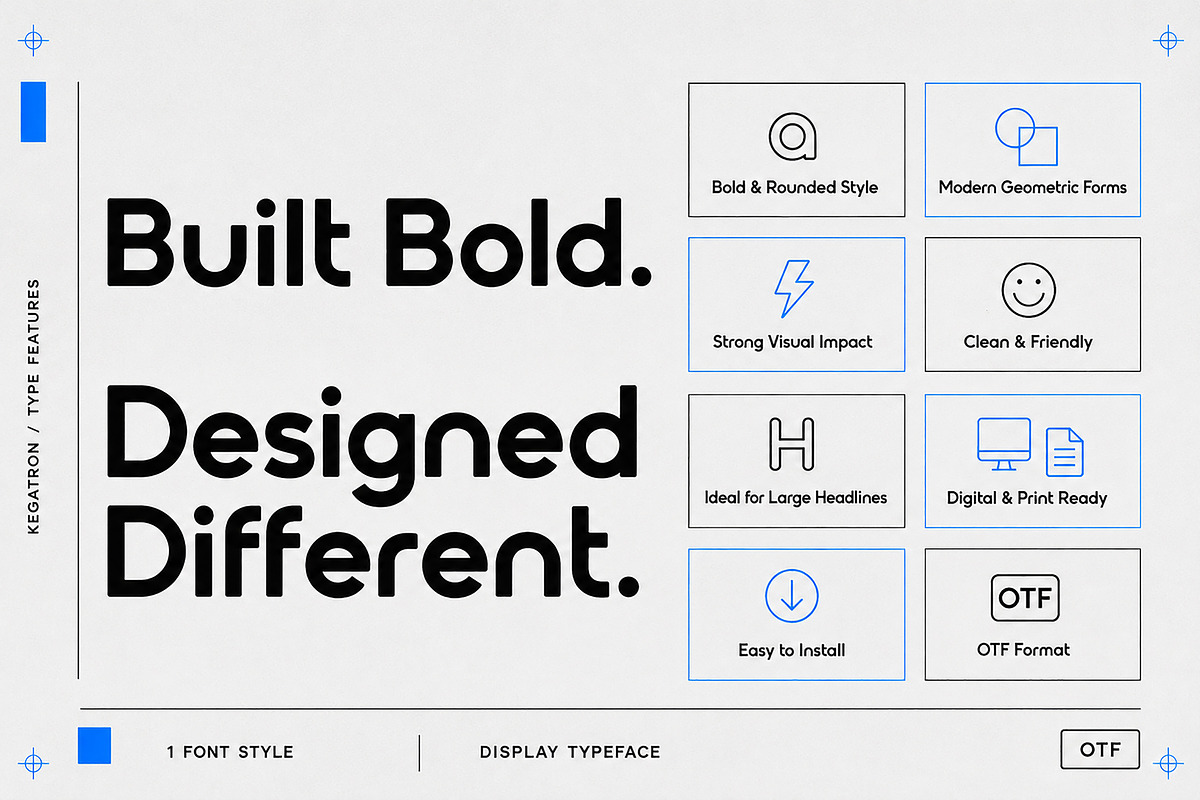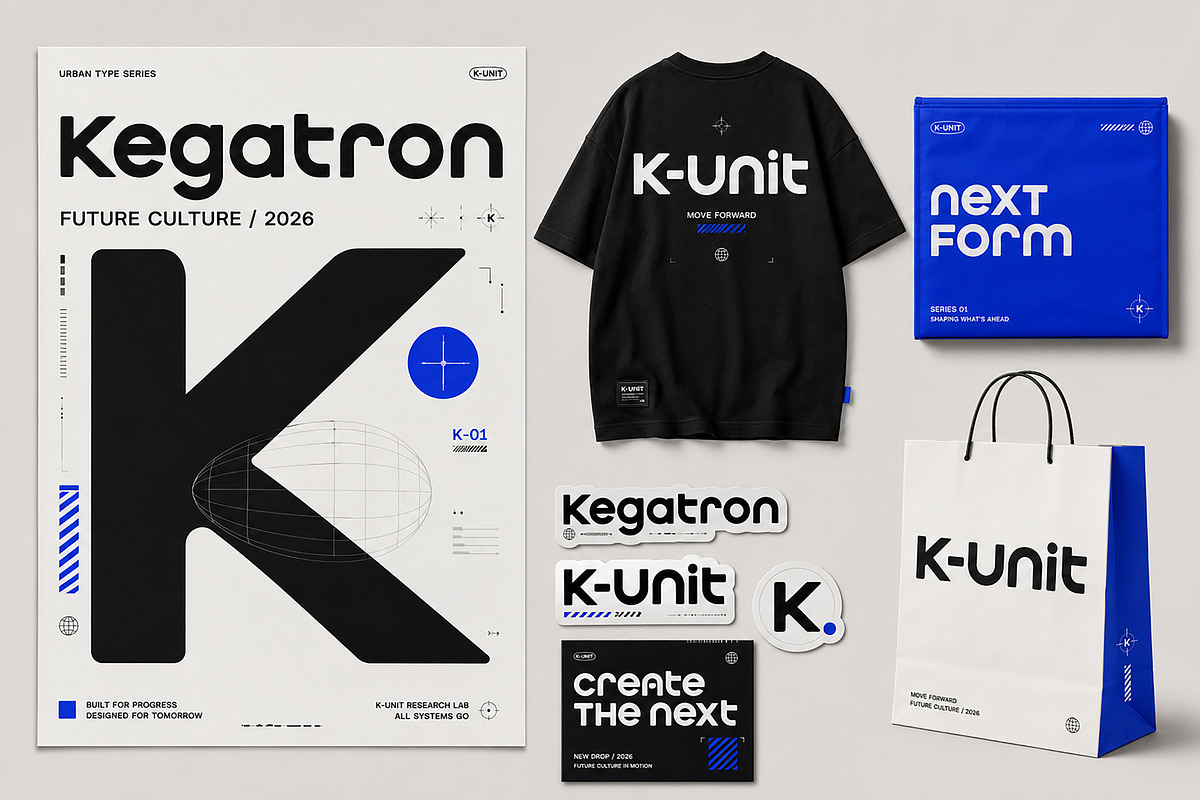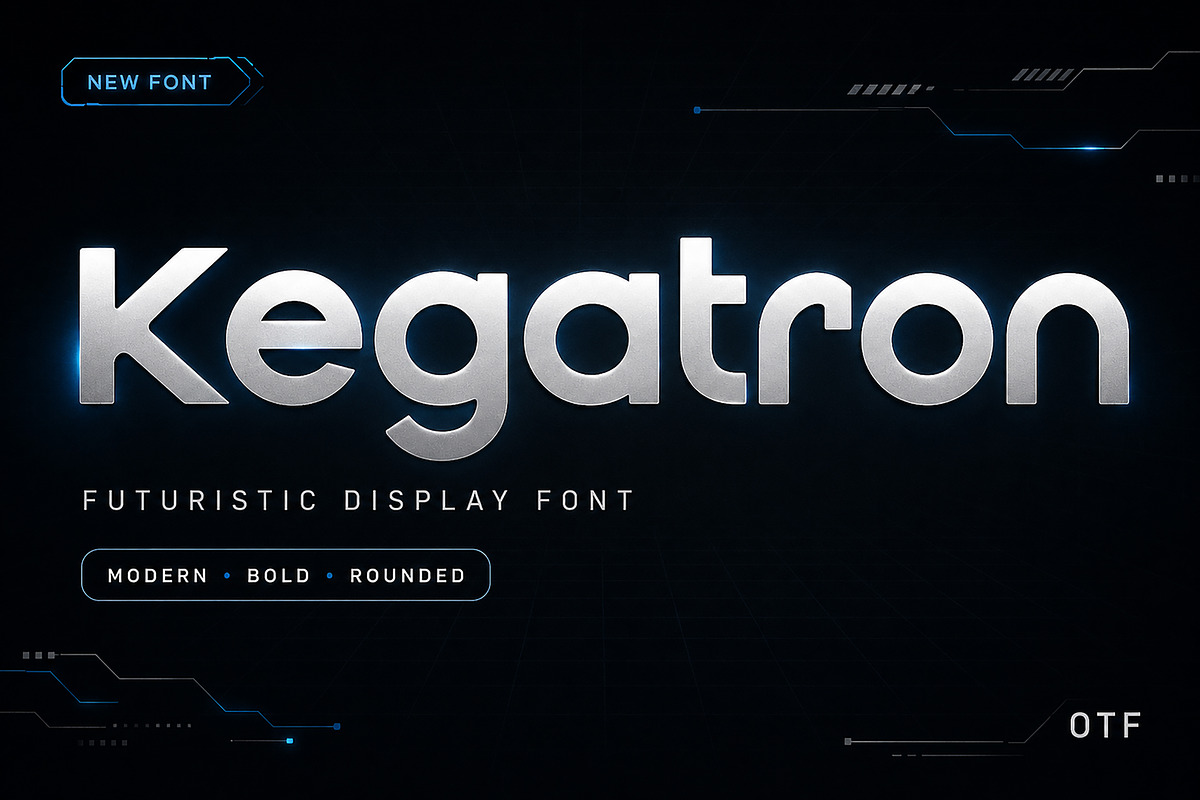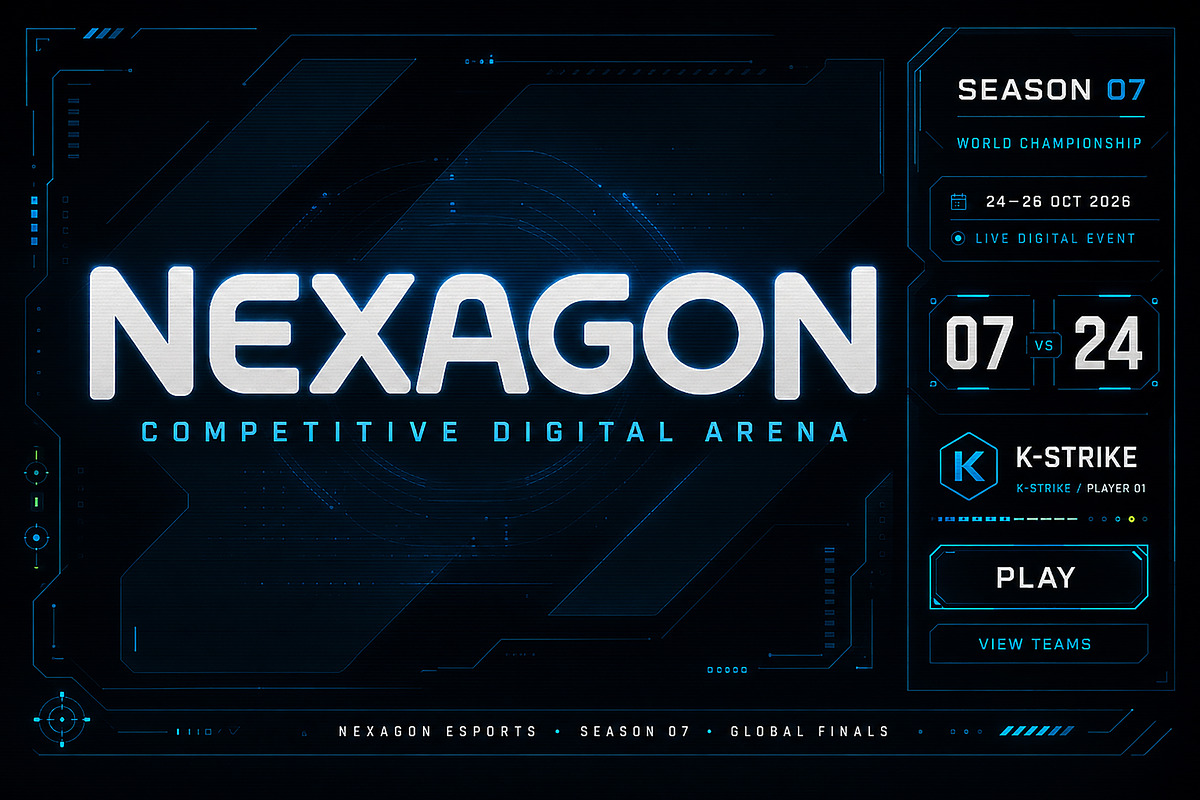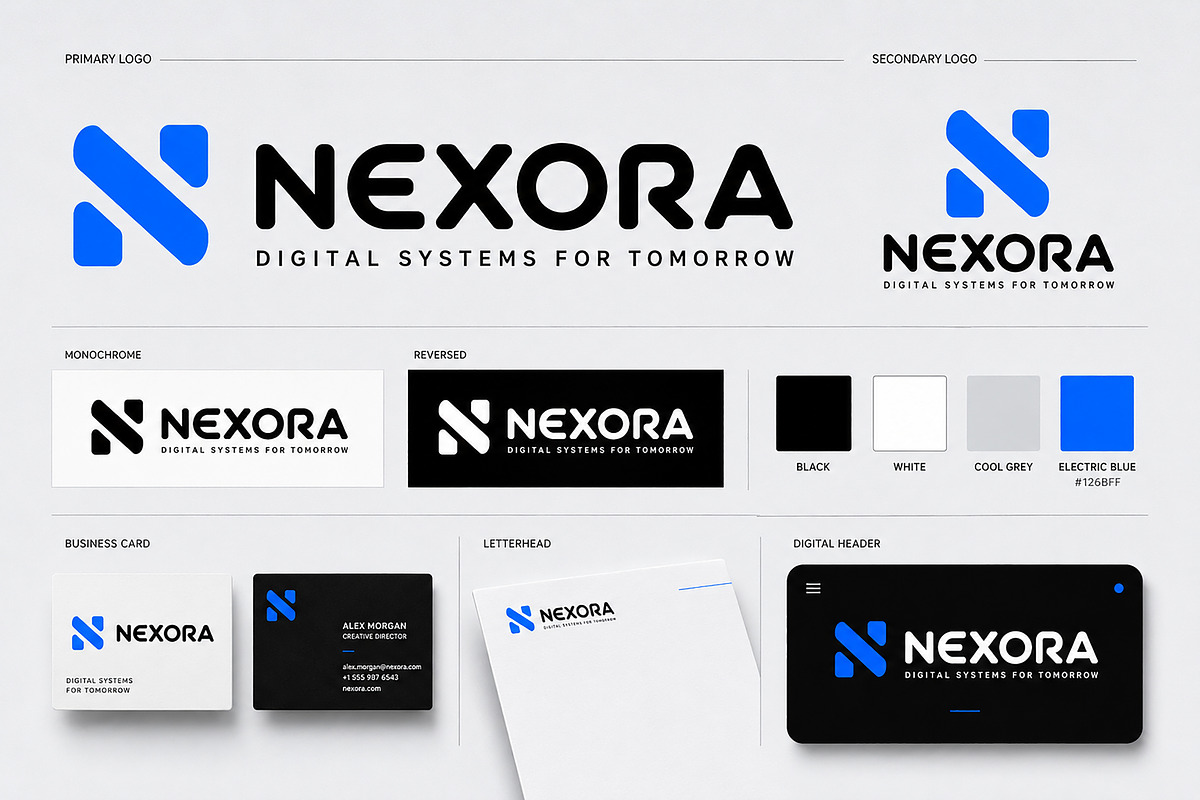
Kegatron – Futuristic Display Font
Kegatron – Bold Futuristic Display Font
Meet Kegatron, a bold futuristic display font built to give modern designs a strong and memorable presence. Its rounded geometric forms combine a powerful technological character with a clean and approachable appearance.
Kegatron is ideal for projects that need large, attention-grabbing typography. Use it for technology branding, gaming titles, esports graphics, logos, posters, streetwear, packaging, merchandise, album covers, digital interfaces and social media campaigns.
Whether you are developing a futuristic brand identity or creating bold promotional artwork, Kegatron gives your message a distinctive modern voice.
Logo and wordmark design
Technology and startup branding
Gaming and esports titles
Posters and promotional graphics
Streetwear and apparel
Packaging and product labels
Merchandise and sticker designs
Album and music covers
Website headlines
Digital interfaces
Social media campaigns
Bold and rounded appearance
Modern geometric construction
Distinctive futuristic personality
Strong display presence
Clean and friendly forms
Suitable for digital and print projects
Bring bold ideas to life and create the future with Kegatron.
Kegatron is a bold, rounded and futuristic display font designed for technology branding, gaming titles, logos, posters, streetwear, packaging and modern digital projects.